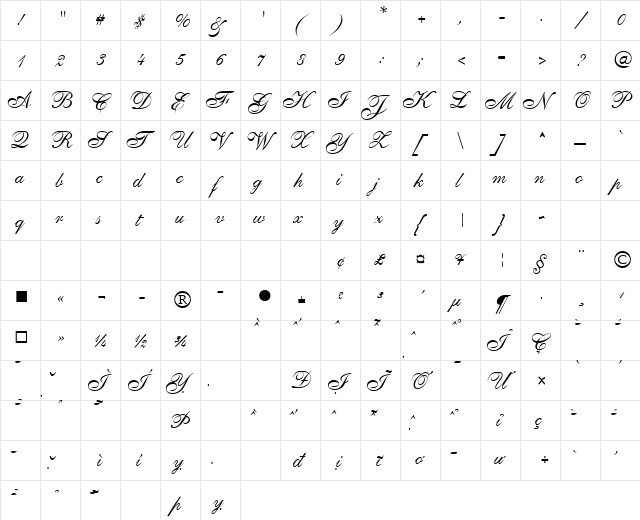
VNI-Allegie Normal
Design Context for VNI-Allegie Typeface
VNI-Allegie is a composed and adaptable typeface that performs quietly and consistently across a wide range of design contexts.